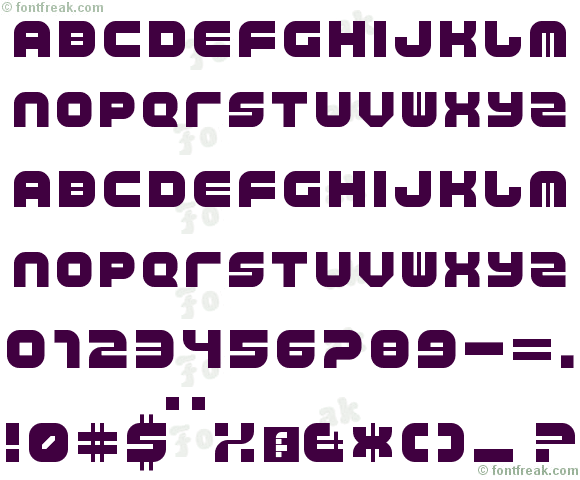
Trip Trap Regular
About Trip Trap Regular
Trip Trap Regular by Andrew McCluskey is a striking display font that captures attention with its unique design. As a sans-serif typeface, it offers a modern and clean aesthetic, making it suitable for a variety of applications. The font features a balanced stroke weight that provides a sense of stability while ensuring readability. With minimal contrast between thick and thin lines, Trip Trap Regular maintains a uniform appearance that enhances its versatility. The ample spacing between characters contributes to its legibility, allowing it to stand out in both print and digital formats.
This font excels in several specific use cases. It's an excellent choice for eye-catching movie posters, where bold typography can convey the film's tone and genre effectively. Additionally, Trip Trap Regular can enhance restaurant menus by adding a contemporary flair that appeals to diners. Graphic designers may find it particularly useful for branding projects, as it communicates a modern identity without being overly complex. Content creators can also leverage this font for social media graphics, ensuring their posts draw the viewer's eye and maintain clarity.
What sets Trip Trap Regular apart is its ability to blend simplicity with a distinctive character. The font's contemporary design and clean lines make it a standout choice for anyone looking to make a statement. For those interested in exploring this unique typeface, a Trip Trap Regular font free download is readily available, ensuring that this remarkable font is accessible to all.